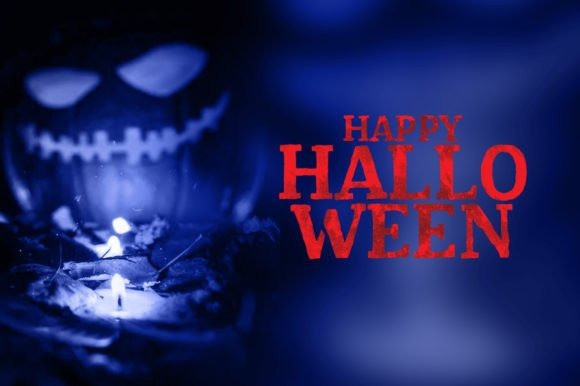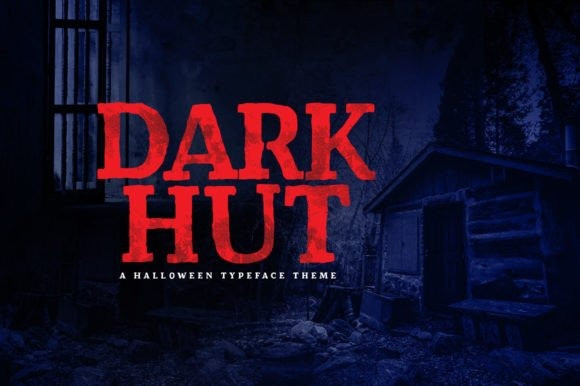
Dark Hut Font
Dark Hut Font is a unique and attractive Sans Serif font. Oddly enough, this font looks really good in a variety of contexts! This font is suitable for designs with horror and Halloween concepts. It can easily be matched to an incredibly large set of projects, so add it to your creative ideas and notice how it makes them stand out!